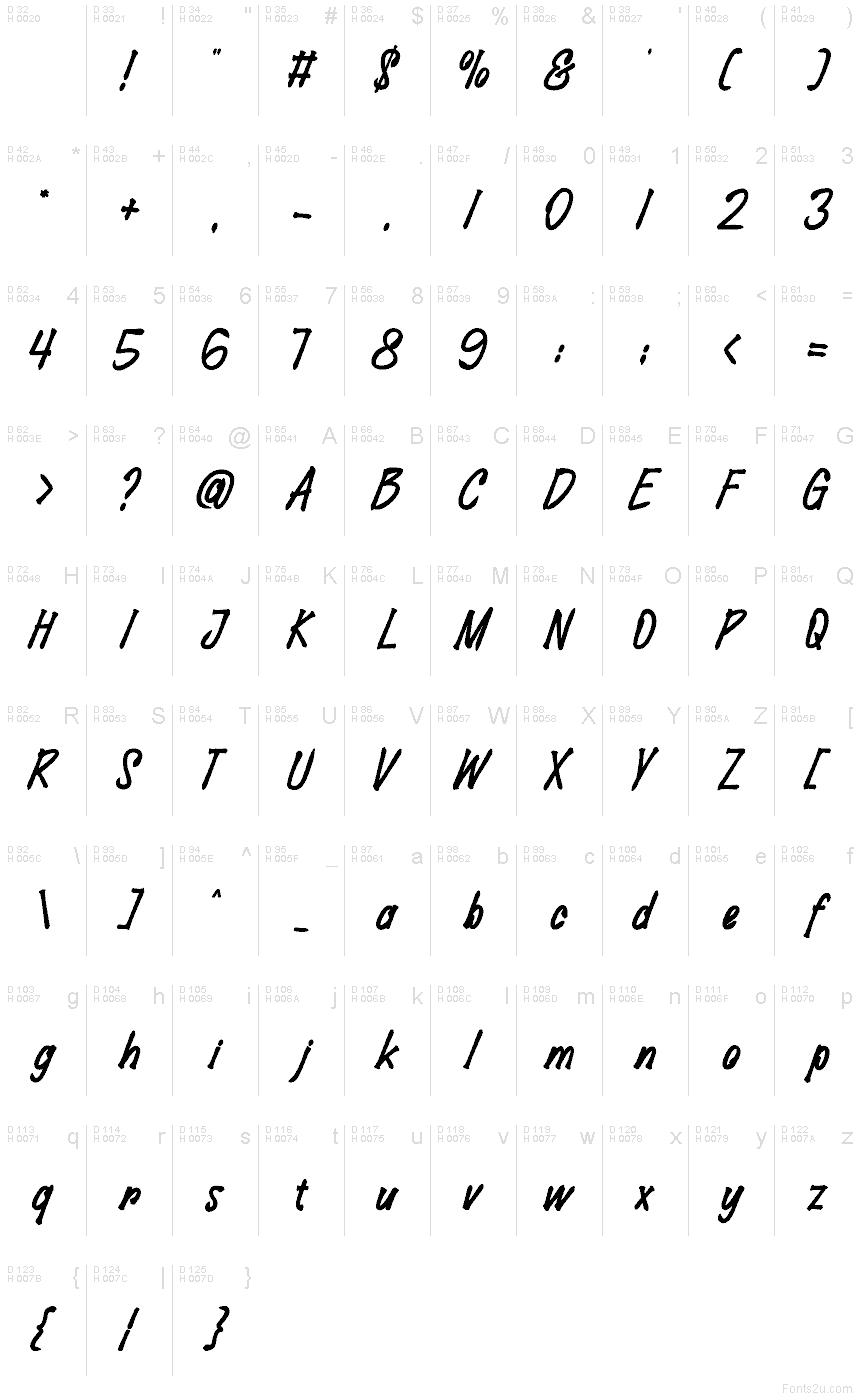
Lemothi Colegan
Lemothi Colegan font by Ermedia Studio is a free handwritten marker font that solves the usual “too messy vs. too stiff” script dilemma. Its velvety strokes, easy right slant, and steady rhythm read cleanly at a glance while keeping that warm, human lift in every curve. The result is approachable and confident—like a fresh marker line that dries smooth, not streaky.
This free font shines on cafe menus, product packaging, lifestyle logos, quote graphics, event invitations, and social posts where you want friendly impact without fuss. Using Lemothi Colegan, you get consistent spacing and a lively bounce that holds together in headlines and short phrases. Pair with a light, neutral sans for body copy, and give it a touch of extra line spacing when used in multi-line titles.